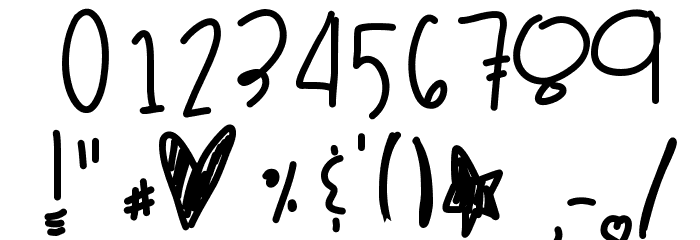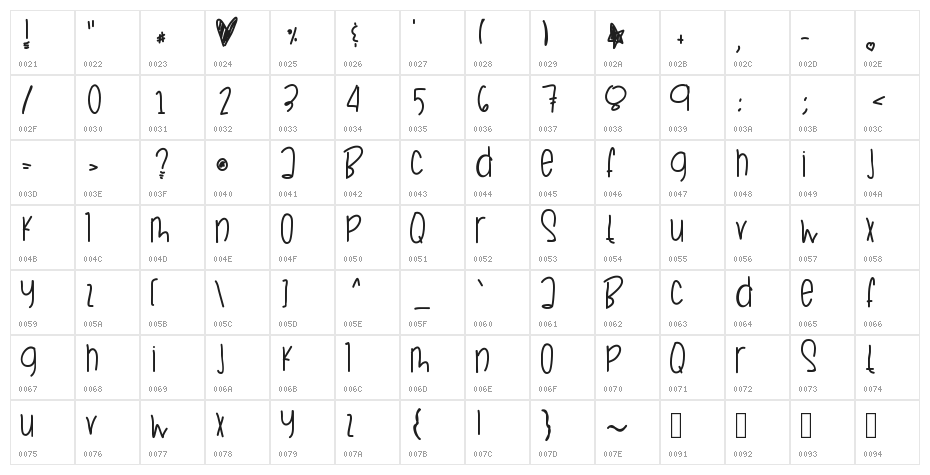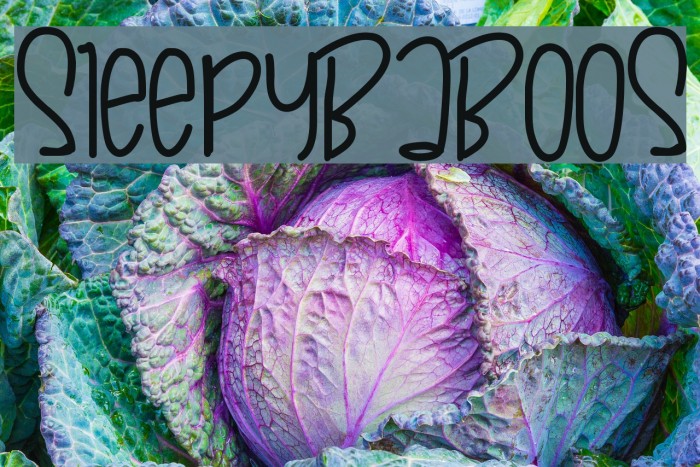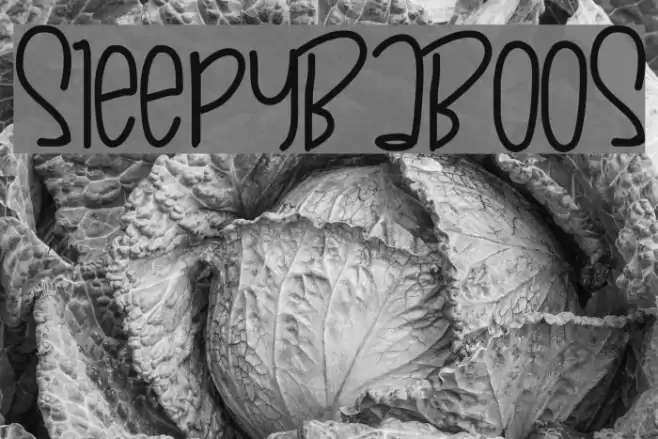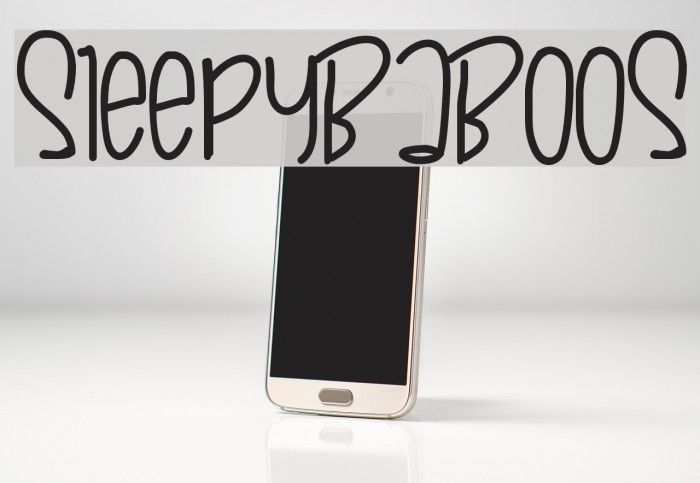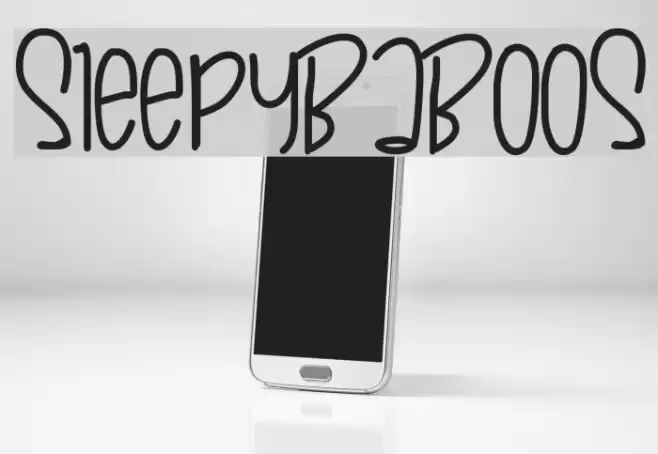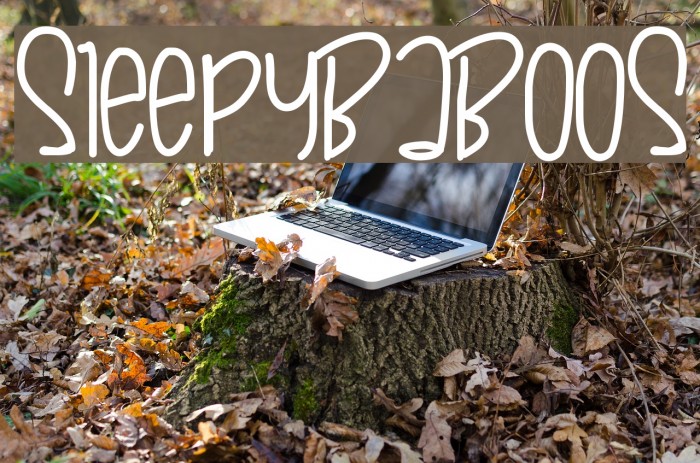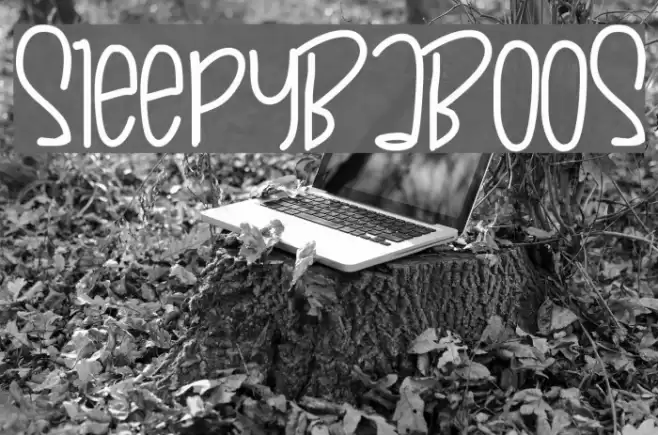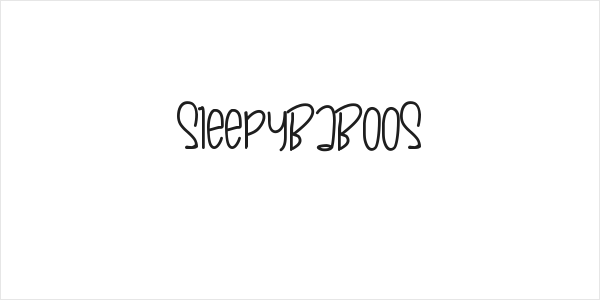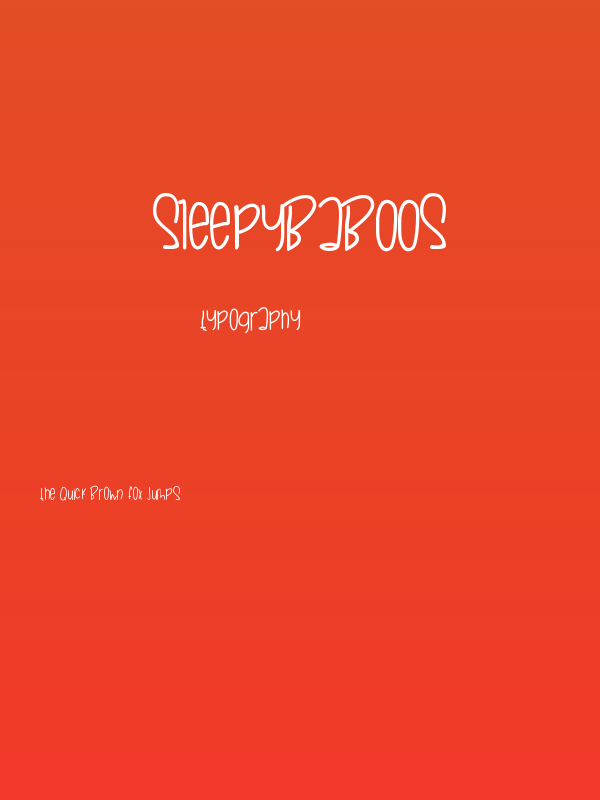
SleepyBaboos Font
SleepyBaboos Description
This playful and whimsical font features a handwritten style with tall, narrow characters. The letters have a casual, relaxed appearance, with slightly uneven lines that add to its charm. The uppercase and lowercase letters maintain a consistent height, creating a cohesive look. Numbers and special characters are included, each maintaining the same playful aesthetic. The font's overall appearance is friendly and approachable, making it suitable for projects that require a personal touch.
| Proposed Projects | Ideal for children's books, greeting cards, playful branding, and informal invitations. |